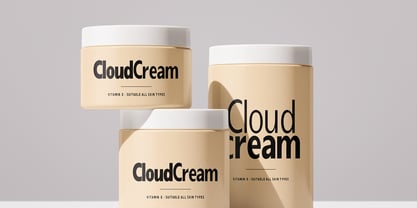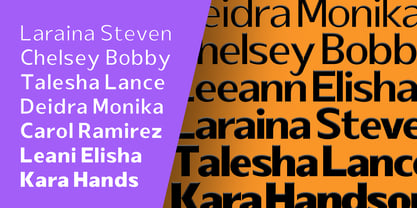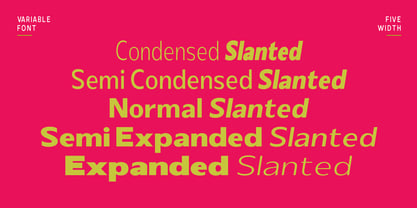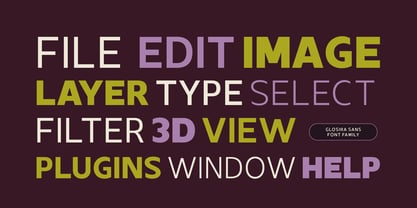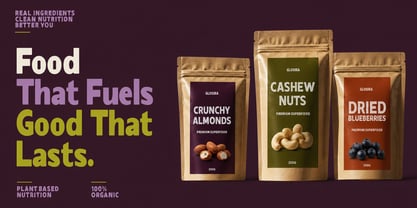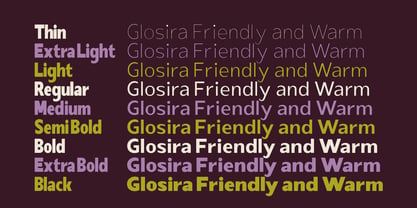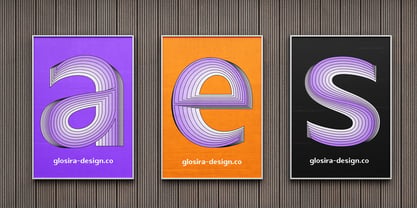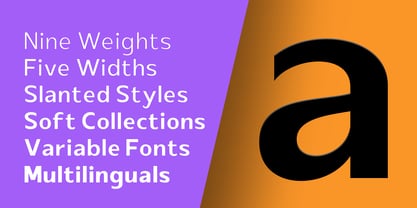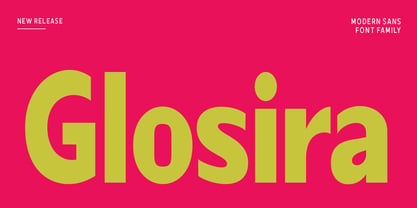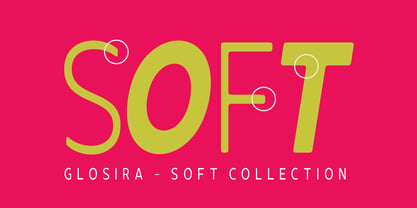
Glosira
by Ajibatype
The Glosira Font Family was designed by Jamhur and published by Ajibatype. Glosira contains 181 styles and family package options. More about this family
Glosira is a contemporary sans serif typeface that embodies warmth, making it an excellent choice for brands that value both personality and performance. Its sleek design and versatile family are perfect for creating impactful headlines and ensuring a comfortable reading experience. With 9 weights, 5 widths, slanted styles, a soft style, and a variable font option, Glosira provides extensive multilingual support, allowing it to seamlessly adapt to any creative challenge, whether in branding, web design, or editorial applications.